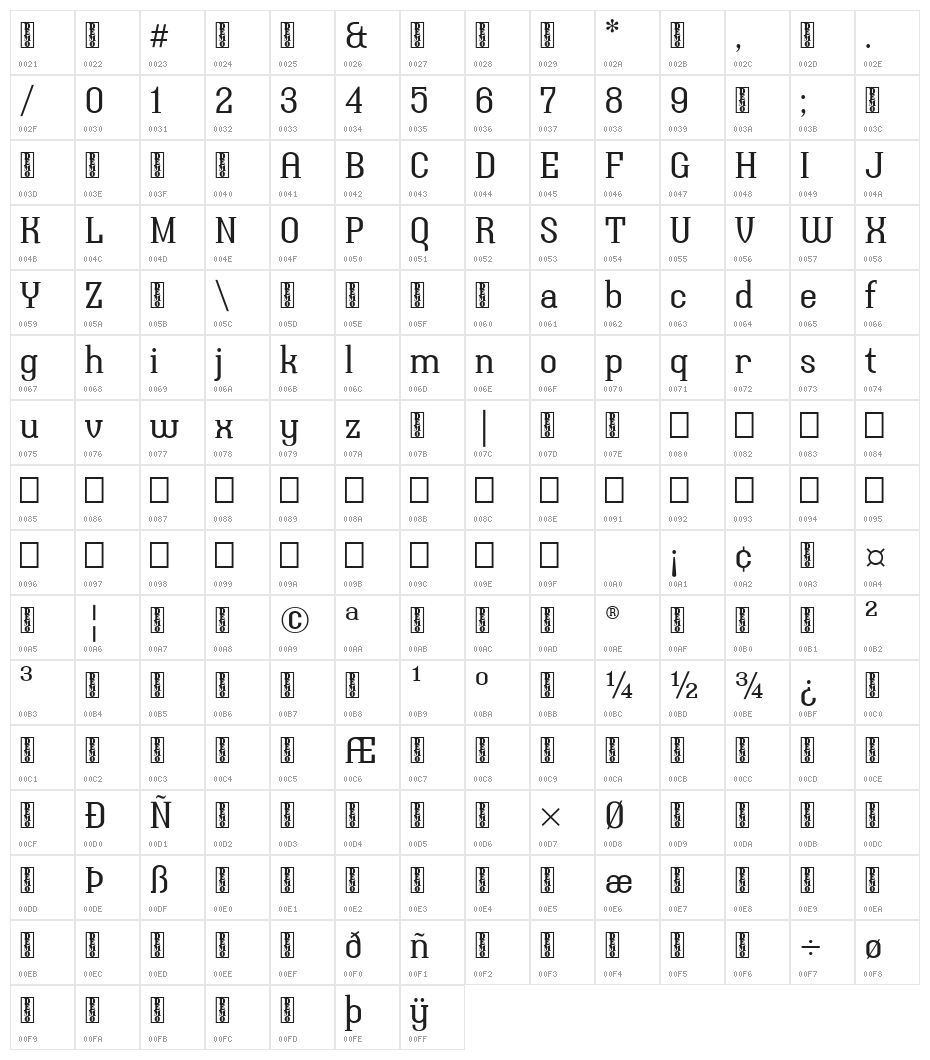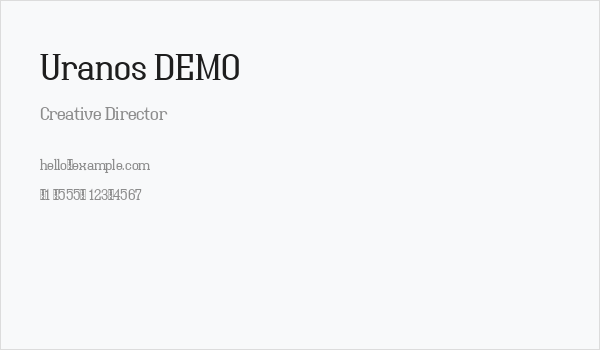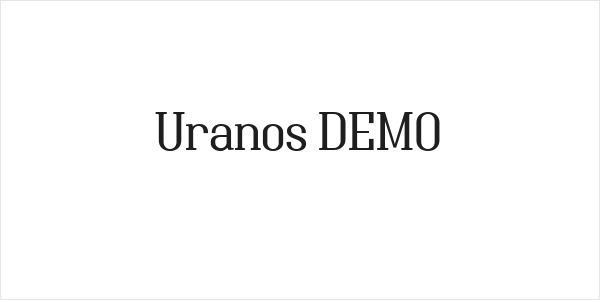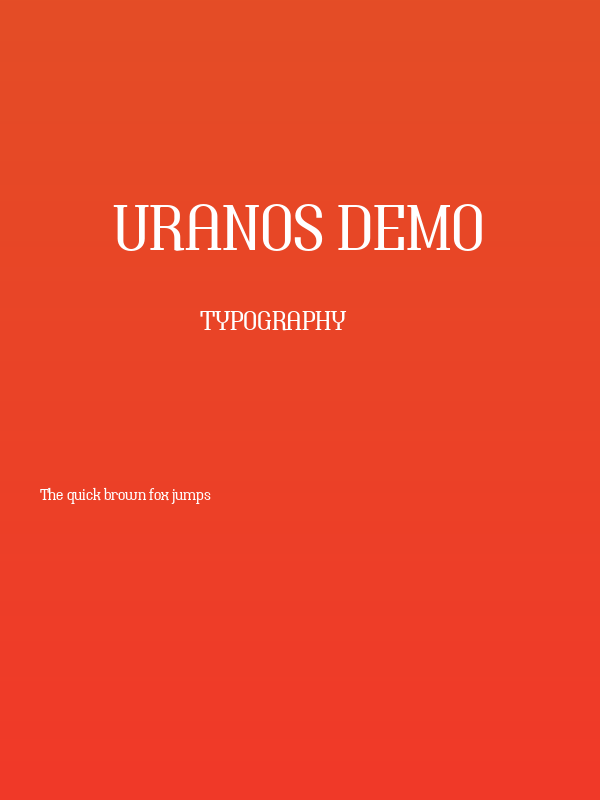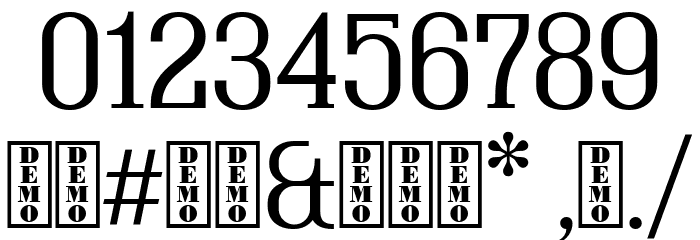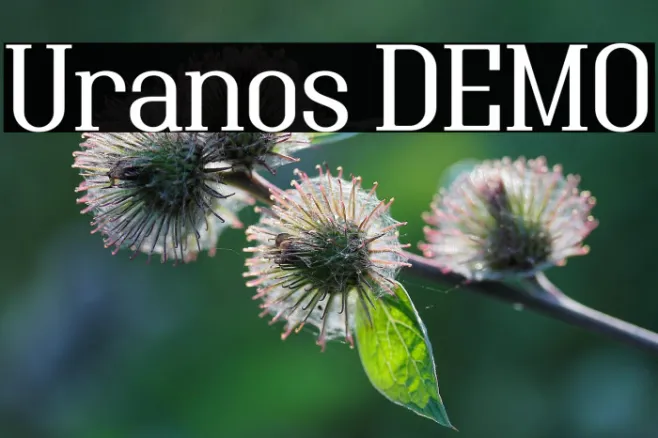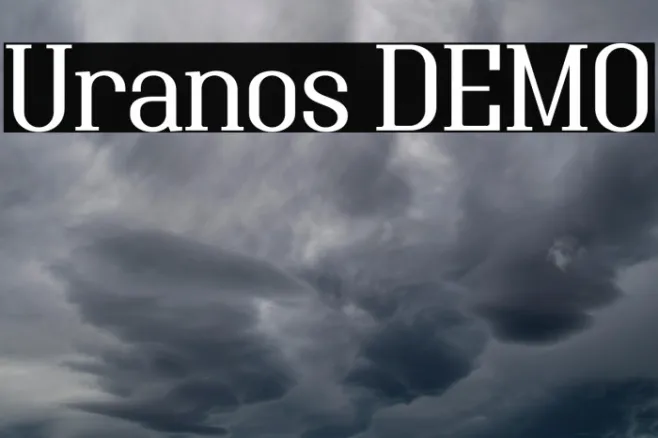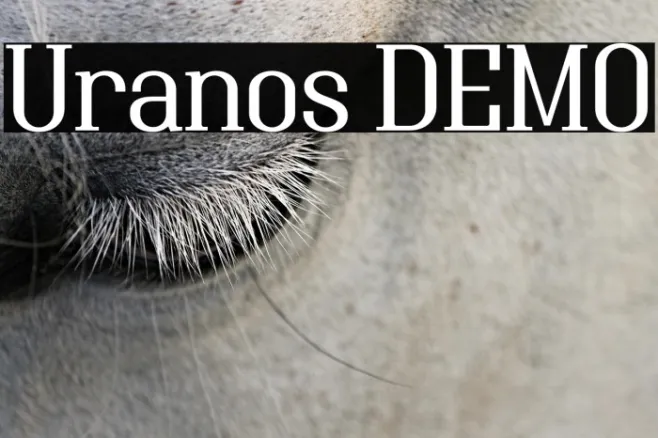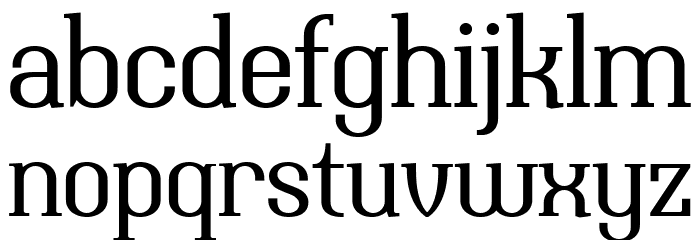
Uranos DEMO Font
Uranos DEMO Description
This font features a classic serif style with a modern twist, characterized by its clean lines and elegant curves. The uppercase letters are tall and commanding, while the lowercase letters maintain a balanced and readable form. The numerals are distinct and clear, making them suitable for various applications. Special characters are well-integrated, adding versatility to the font's use. The overall design is both sophisticated and approachable, making it ideal for projects that require a touch of elegance and readability.
| Proposed Projects | Ideal for editorial design, book covers, branding, and formal invitations. |